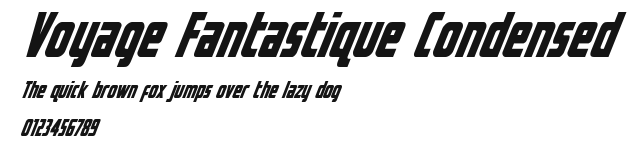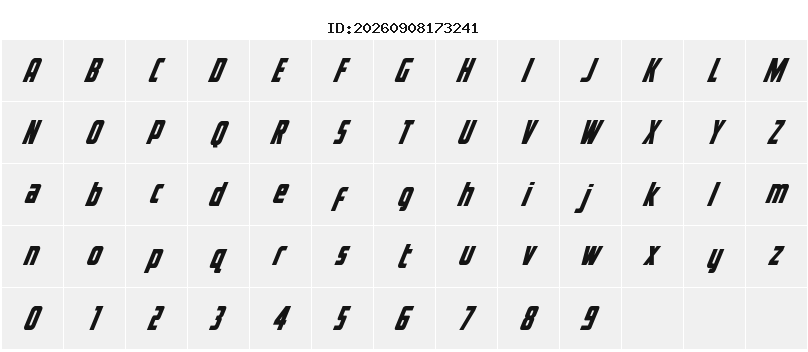
Voyage Fantastique Condensed Preview
• Font Name: Voyage Fantastique Condensed
• Font Style: Condensed
• Full Font Name: Voyage Fantastique Condensed
About Voyage Fantastique Condensed.ttf
Voyage Fantastique Condensed.ttf is a modern, elegant sans-serif font designed for ultimate readability and visual harmony. Perfect for branding, headlines, web design, and print materials.